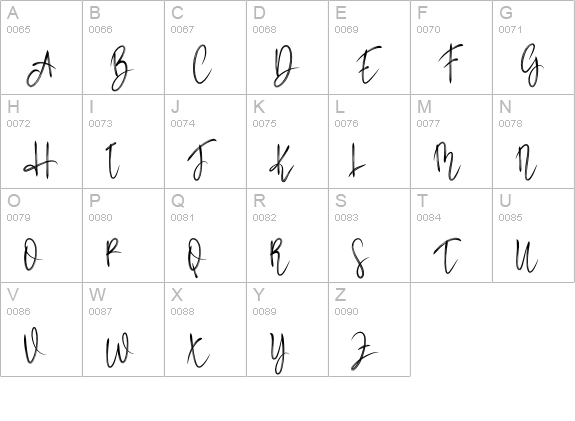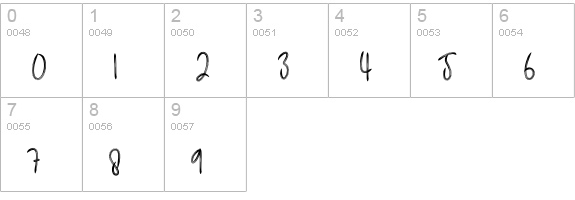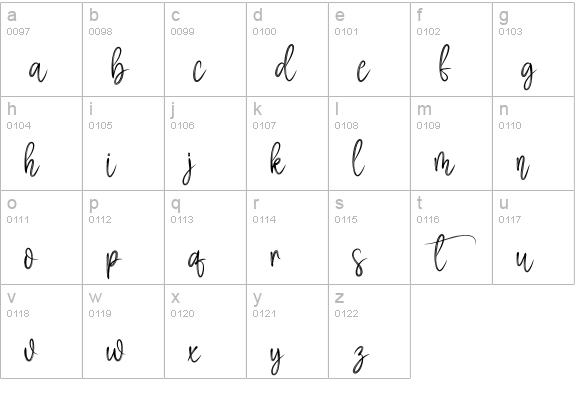
Hamster Signature Font Details
Hamster Signature is a free for personal use font in the Script > Handwritten category, designed by scratchones. It has been downloaded 26 times and is available for Windows, Mac and Linux.
Introducing Hamster Signature, a charming and whimsical font that exudes a playful and friendly vibe. Perfect for adding a touch of personality to your designs, this font features elegant curves and unique flourishes that make it stand out. Whether you're working on a greeting card, logo, or social media graphic, Hamster Signature is sure to bring a touch of warmth and character to your project.